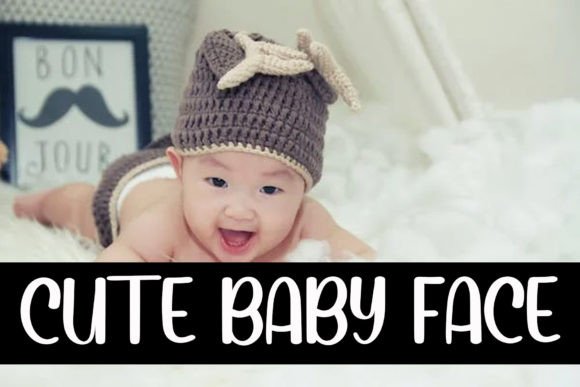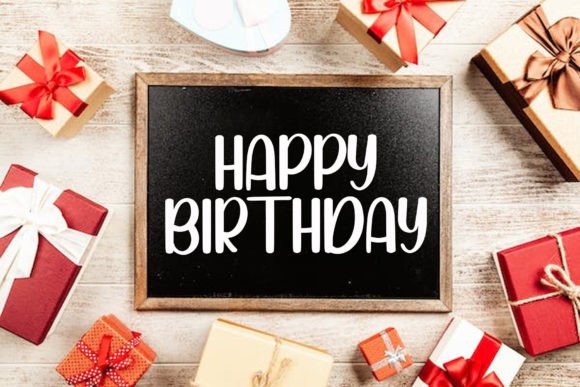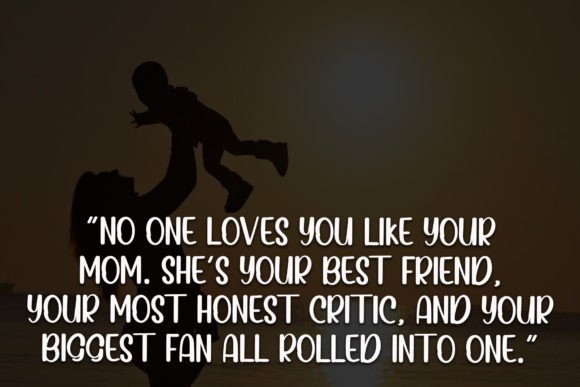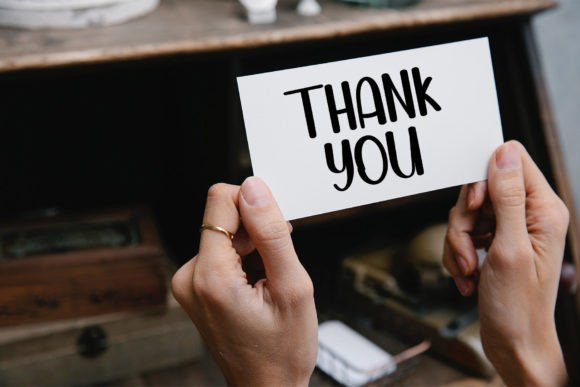
Introducing Funny Moment Font: Elevate Your Designs with Elegance and Whimsy
In the world of typography, a font can make all the difference in transforming a design from ordinary to extraordinary. For those seeking a touch of elegance and a dash of playfulness, the Funny Moment Font is an exquisite choice. This beautifully crafted handwritten display font is designed to infuse your projects with a timeless charm that captivates audiences. Let’s dive deeper into what makes Funny Moment Font a must-have for designers and crafters alike.
The Essence of Funny Moment Font
Funny Moment Font is described by its elegant touch, a characteristic that sets it apart in the realm of handwritten fonts. Its incredibly distinct style is not just a passing trend but a classic approach to typography that ensures your designs remain relevant and stylish for years to come. Whether you’re working on a branding project, a wedding invitation, or a digital banner, this font adds a sophisticated yet approachable feel that resonates with viewers.
Key Features of Funny Moment Font
- Elegant and Whimsical: The font strikes a perfect balance between elegance and whimsy, making it versatile for a wide range of projects.
- Handwritten Display Font: Its handwritten nature gives it a personal and unique touch, ideal for designs that require a more intimate feel.
- Distinct and Timeless Style: The font’s classic appeal ensures that your designs don’t just look good now but will also stand the test of time.
- Perfect for Spectacular Designs: With Funny Moment Font, creating stunning and impactful designs is easier than ever.
Who Can Benefit from Funny Moment Font?
Funny Moment Font is a valuable asset for a broad spectrum of designers and crafters, including:
- Graphic Designers: Looking for a sophisticated yet playful font to elevate their branding and advertising projects.
- Wedding Planners and Stationery Designers: Seeking elegant and unique typography for wedding invitations, place cards, and other stationery.
- Digital Artists and Bloggers: Aiming to add a personal touch to their digital content and social media graphics.
- Crafters: Creating handmade cards, scrapbooking, or other paper crafts that demand a special kind of charm.
How to Use Funny Moment Font Effectively
To make the most of Funny Moment Font, consider the following tips:
- Pair with Complementary Fonts: Use Funny Moment Font as a headline or title font and pair it with simpler fonts for body text to create visual hierarchy.
- Experiment with Colors: While the font itself is elegant, playing with different colors can enhance its appeal and adapt it to your project’s mood.
- Play with Sizes: The font’s versatility shines when used in various sizes, from large titles to smaller subheadings.
Funny Moment Font is more than just a typeface; it’s a design element that can transform your projects with its elegant and whimsical charm. Its timeless appeal and versatility make it an excellent addition to any designer’s or crafter’s toolkit. Whether you’re aiming to create a stunning brand identity, a memorable advertisement, or a heartfelt invitation, Funny Moment Font is your gateway to designs that leave a lasting impression.
So, fall in love with the distinct style of Funny Moment Font and unlock a world of creative possibilities. Let its elegance and playfulness shine through your work, making it not just visually appealing but also uniquely memorable.